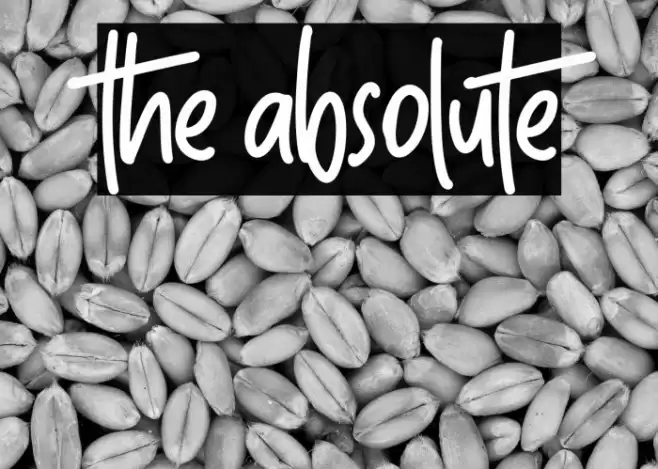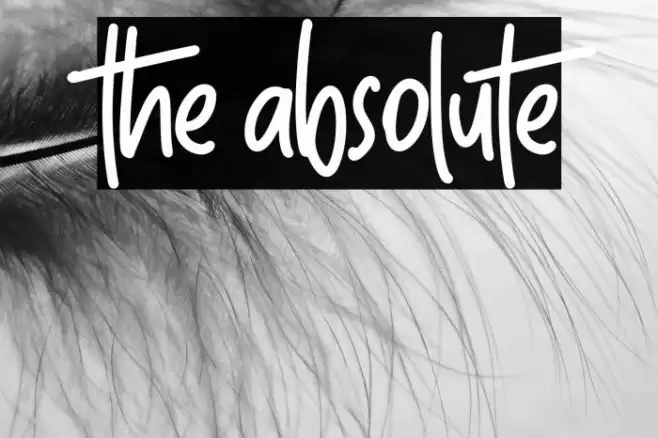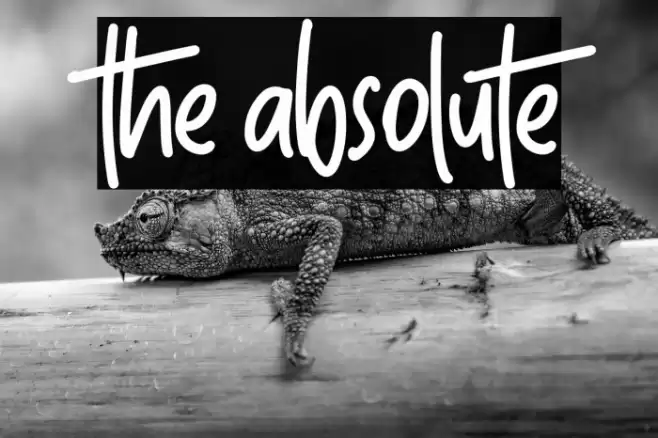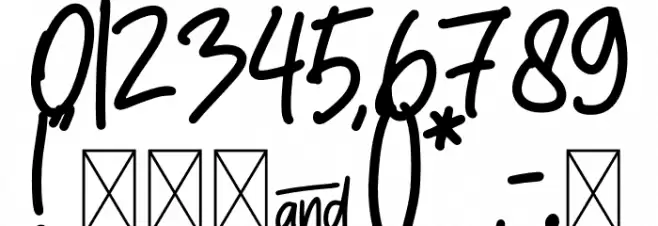
The Absolute Font
The Absolute Description
This font features a playful and casual handwritten style, characterized by its fluid and dynamic strokes. The letters are slightly slanted, giving it an informal and approachable feel. The characters are well-spaced, with a natural flow that mimics real handwriting. The numbers and special characters maintain the same lively style, ensuring consistency throughout. This font is perfect for projects that require a personal touch, such as greeting cards, invitations, or creative branding. Its unique style stands out, making it ideal for capturing attention in a variety of contexts.
A playful, handwritten font with fluid and dynamic strokes from Regular fonts.
- Proposed Projects: Greeting cards, invitations, creative branding, personal notes.
- Overall Style: Casual
- Use Case: Headlines, Logos, Invitations